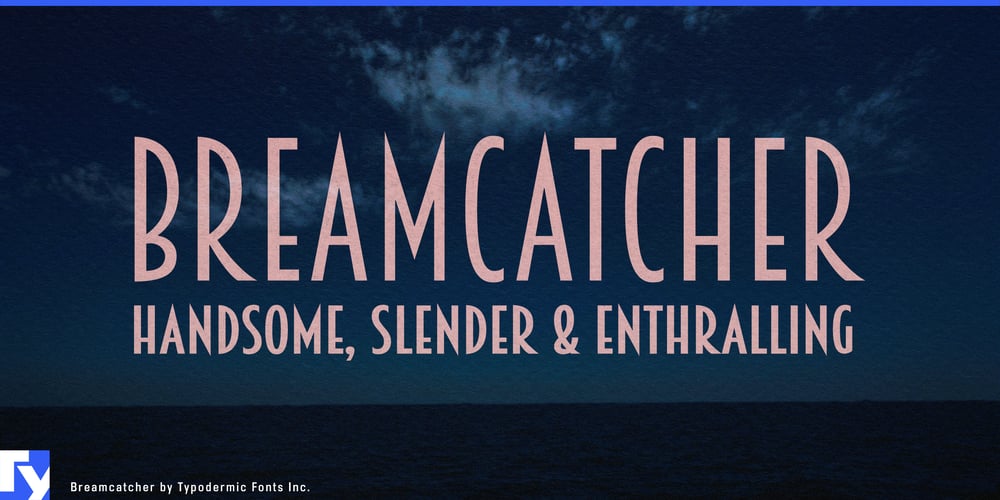
Breamcatcher
Breamcatcher font
Breamcatcher Font Family was designed by Ray Larabie and published by Typodermic. Breamcatcher contains 4 styles and family package options. Step into the sophisticated world of the 1920s with Breamcatcher, a typeface that breathes new life into Art Deco elegance. Inspired by the smooth, languid notes of Bing Crosby and Kitty Carlisle’s classic “With Every Breath I Take,” Breamcatcher transforms typography into a visual melody.What sets Breamcatcher apart is its remarkably wide spacing—a design choice that infuses each word with an air of refined nonchalance. This generous letterspacing creates a rhythm in your text, allowing each character to stand proud while harmonizing with its neighbors. The result is a typeface that doesn’t just communicate; it serenades. Breamcatcher’s lazy strokes and loose spacing work in concert to give your message a breezy, reassuring voice. It’s the typographic equivalent of a slow dance—graceful, unhurried, and undeniably romantic. Whether you’re designing for luxury brands or crafting invitations for a glamorous soirée, Breamcatcher lends an air of timeless sophistication to every project.Available in Regular, Italic, and Bold-Italic styles, Breamcatcher offers versatility without compromising its unique character. Its extensive character set, including OpenType fractions, numeric ordinals, and a wide range of currency symbols, ensures that you’re equipped for any design challenge—from evoking the opulence of the Roaring Twenties to adding a touch of vintage charm to contemporary layouts. Breamcatcher’s linguistic versatility is equally impressive, supporting most Latin-based European languages, Vietnamese, Greek, and a wide array of Cyrillic-based writing systems. This broad language support allows your designs to resonate with the same elegance and poise across cultures, from the bustling streets of Paris to the romantic canals of St. Petersburg.Choose Breamcatcher when you want your typography to do more than just convey information—when you want it to transport your audience to an era of unparalleled style and grace. Let each widely spaced letter be a stepping stone, guiding the eye through your design with the ease and confidence of a seasoned jazz musician.In a world of rushed communication, Breamcatcher invites us to slow down and savor each letter, each word, each message. It’s more than a typeface; it’s an invitation to elegance, a reminder of a time when style was a way of life. Embrace the sophisticated rhythm of Breamcatcher, and watch as your designs come alive with the timeless allure of the Art Deco era.